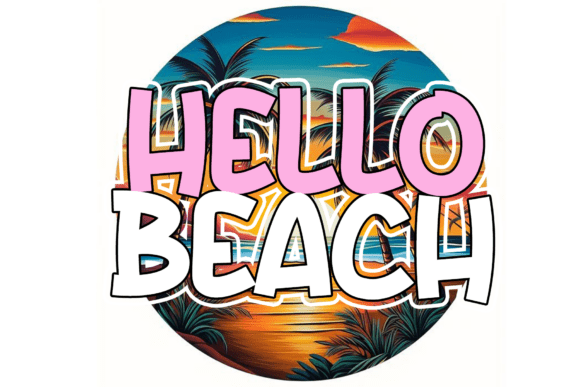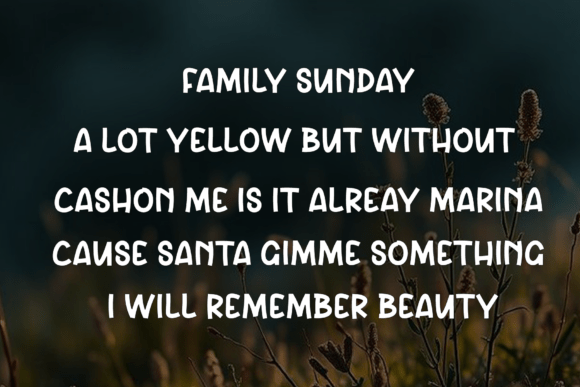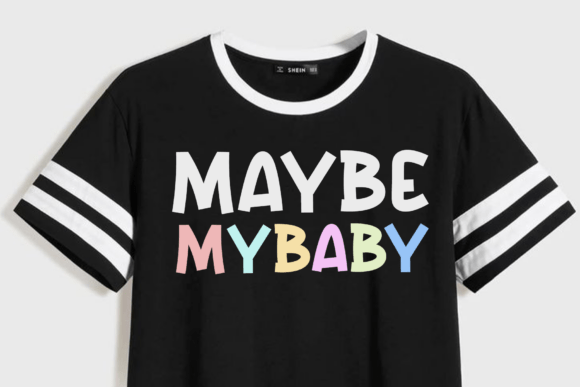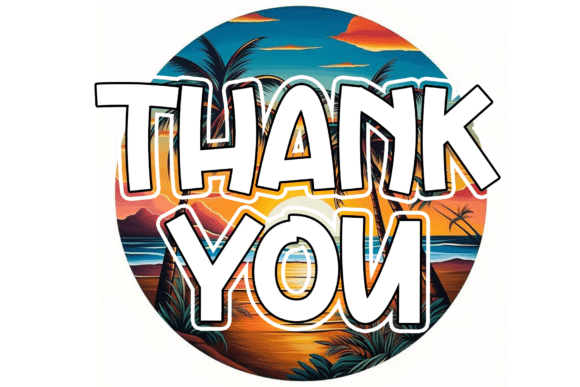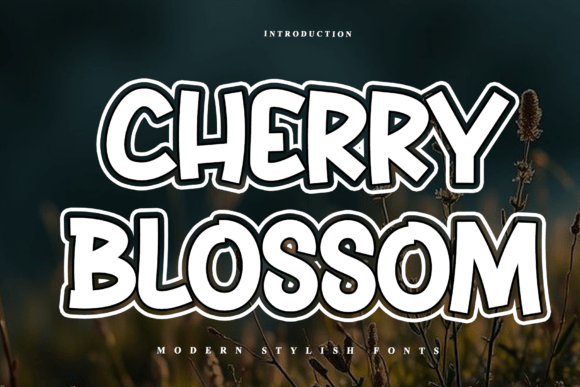
Introducing Cherry Blossom Font: The Timeless Handwritten Font for Stunning Designs
Are you a designer or crafter looking for a font that can add a touch of elegance and sophistication to your designs? Look no further than Cherry Blossom Font! This lovely and timeless handwritten font is perfect for creating eye-catching logos, branding, and quotes that will leave a lasting impression on your audience.
What Makes Cherry Blossom Font So Special?
Every letter in Cherry Blossom Font has a unique and beautiful touch that will make your design come alive! The font’s handwritten style gives it a personal and organic feel that is perfect for creating designs that are both modern and timeless. Whether you’re looking to create a logo, branding materials, or social media graphics, Cherry Blossom Font is the perfect choice.
Key Features of Cherry Blossom Font
- Handwritten Style: Cherry Blossom Font has a beautiful handwritten style that gives it a personal and organic feel.
- Unique Letterforms: Every letter in Cherry Blossom Font has a unique and beautiful touch that will make your design stand out.
- Elegant and Sophisticated: The font’s elegant and sophisticated style makes it perfect for creating high-end designs.
- Versatile: Cherry Blossom Font can be used for a wide range of design projects, from logos and branding to quotes and social media graphics.
Why Choose Cherry Blossom Font?
There are many reasons why Cherry Blossom Font is the perfect choice for designers and crafters. Here are just a few:
- Adds a Touch of Elegance: Cherry Blossom Font adds a touch of elegance and sophistication to any design.
- Easy to Read: The font is easy to read, making it perfect for creating designs that need to communicate a message.
- Customizable: Cherry Blossom Font can be customized to fit your design needs, making it perfect for creating unique and personalized designs.
- Timeless: The font’s timeless style ensures that your designs will never go out of style.
How to Use Cherry Blossom Font in Your Designs
Using Cherry Blossom Font in your designs is easy! Here are a few tips to get you started:
- Pair it with Other Fonts: Cherry Blossom Font pairs well with other fonts, making it easy to create unique and interesting designs.
- Experiment with Colors: The font looks great in a variety of colors, so don’t be afraid to experiment and find the perfect color for your design.
- Use it for Headlines and Titles: Cherry Blossom Font is perfect for creating eye-catching headlines and titles.
- Add a Personal Touch: The font’s handwritten style makes it perfect for adding a personal touch to your designs.
Cherry Blossom Font is a lovely and timeless handwritten font that is perfect for creating eye-catching logos, branding, and quotes. With its unique and beautiful letterforms, elegant and sophisticated style, and versatility, it’s the perfect choice for designers and crafters. Whether you’re looking to add a touch of elegance to your designs or create a timeless and sophisticated look, Cherry Blossom Font is the perfect choice.